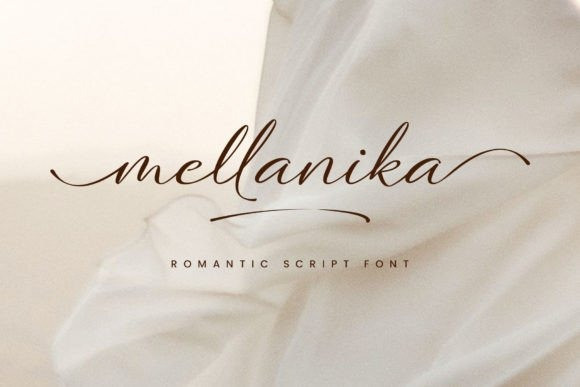
Mellanika Font
Mellanika Script font is a natural script font, made with handwriting style. This font also has a signature touch that is versatile to apply for many purposes.
Mellanika is feminine, lovable, and visualizes beauty! Recommended to be used on designs that require minimalist, elegant, or clean looks.